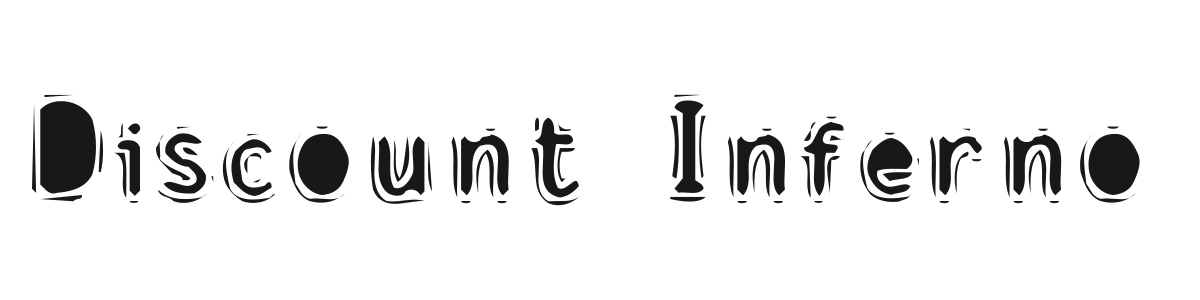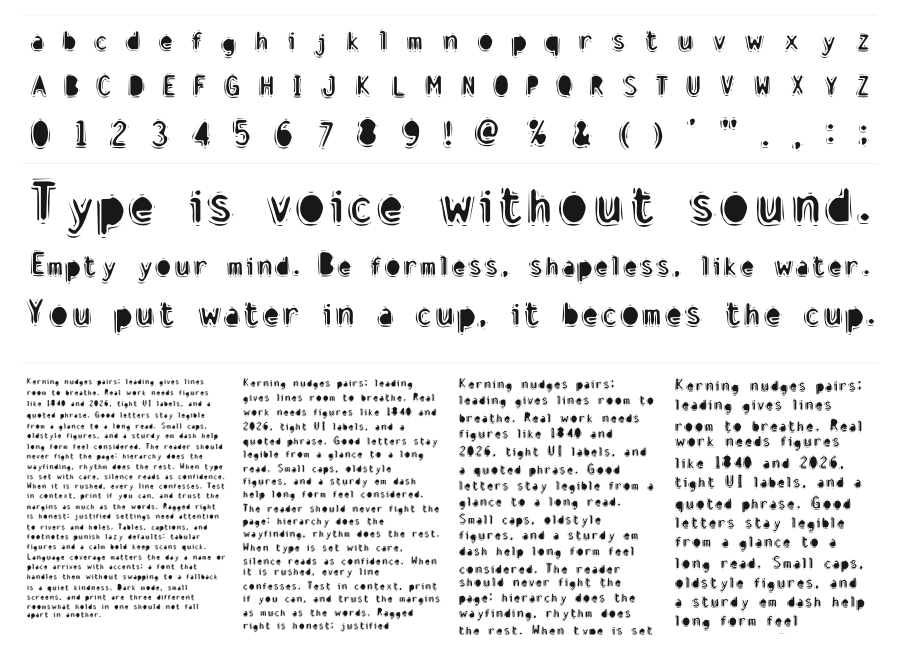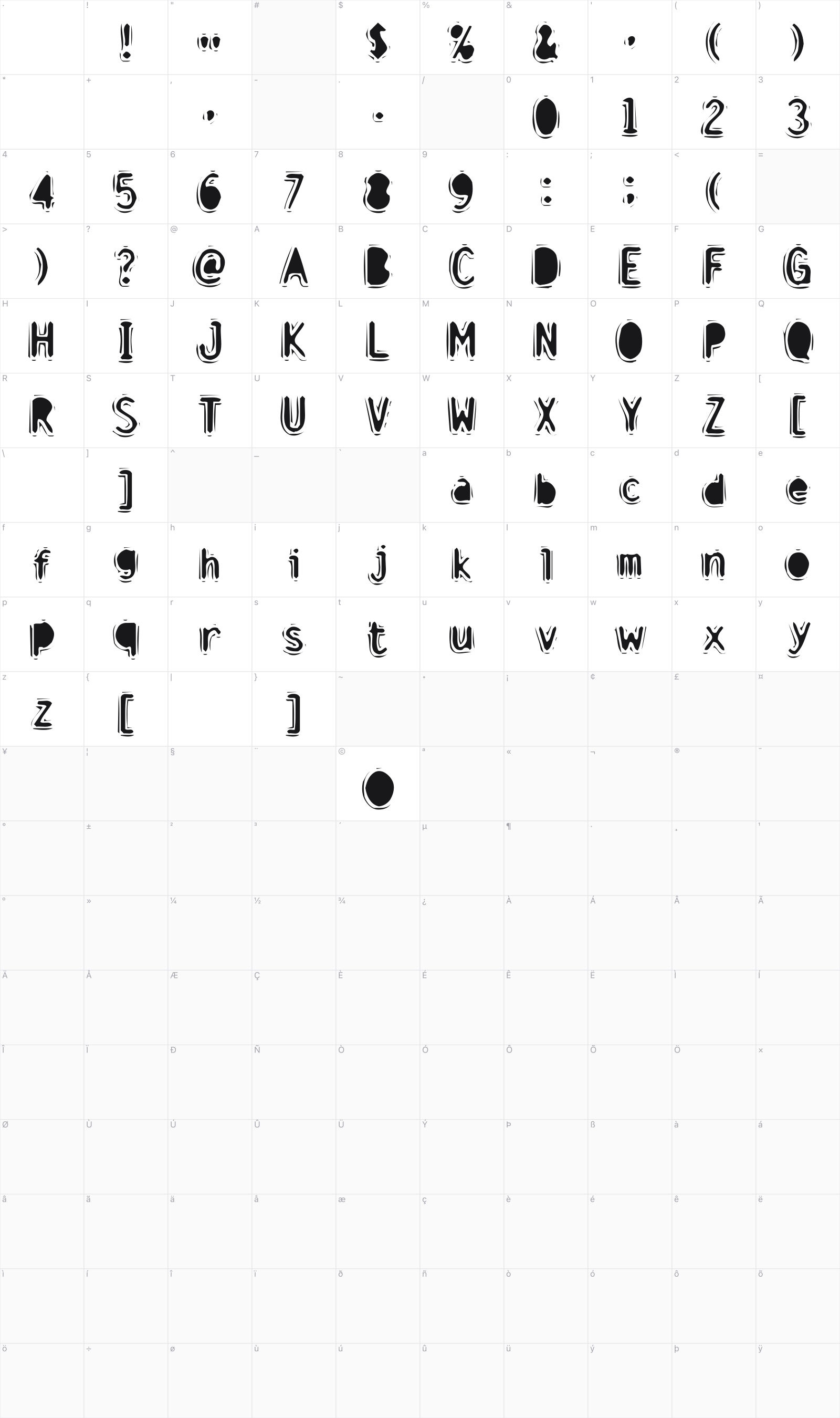
Discount Inferno
Discount Inferno is a heavy rounded display face with a melting, inflated distortion that makes each character look like it's been filled with liquid and pressed to the surface. The bloated, organic bulges and white inline details give it a lava-lamp energy rooted firmly in 1990s grunge typography. It works as a headline or poster font when the design calls for chaotic personality.